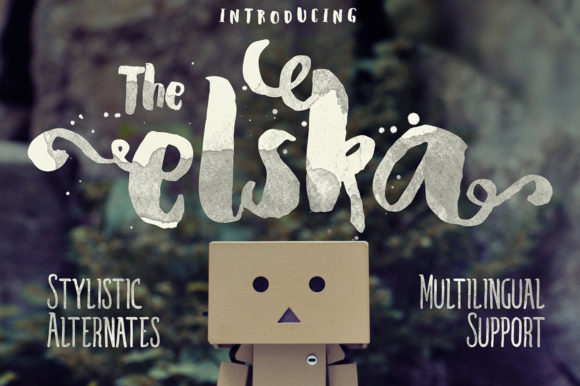
Dive into the world of Elska Font, a captivating handwritten font family that exudes elegance and sophistication. With its graceful strokes and thick letterforms, Elska adds a touch of luxury to any design project.
Step into the spotlight with Elska, the perfect font for movie posters that demand attention. Its bold presence and sweeping characters create a visual masterpiece that draws the eye and captivates the imagination. Transport your audience to another realm with Elska's cinematic flair, making your posters true works of art.
Unleash your creativity with Elska's versatility. Whether you're crafting logos, branding materials, or eye-catching social media posts, Elska effortlessly elevates your designs. Its charming personality adds a touch of whimsy and sophistication, ensuring your messages stand out from the crowd.
Indulge in the beauty of Elska's meticulously crafted characters. Each letter dances along the baseline, creating a harmonious rhythm that flows seamlessly throughout your designs. Experience the joy of effortless creativity as Elska transforms your words into stunning visual masterpieces.
With Elska, the possibilities are endless. Its timeless appeal makes it the perfect choice for a wide range of projects, from wedding invitations and greeting cards to book covers and magazine layouts. Embrace the magic of Elska and watch your designs flourish.